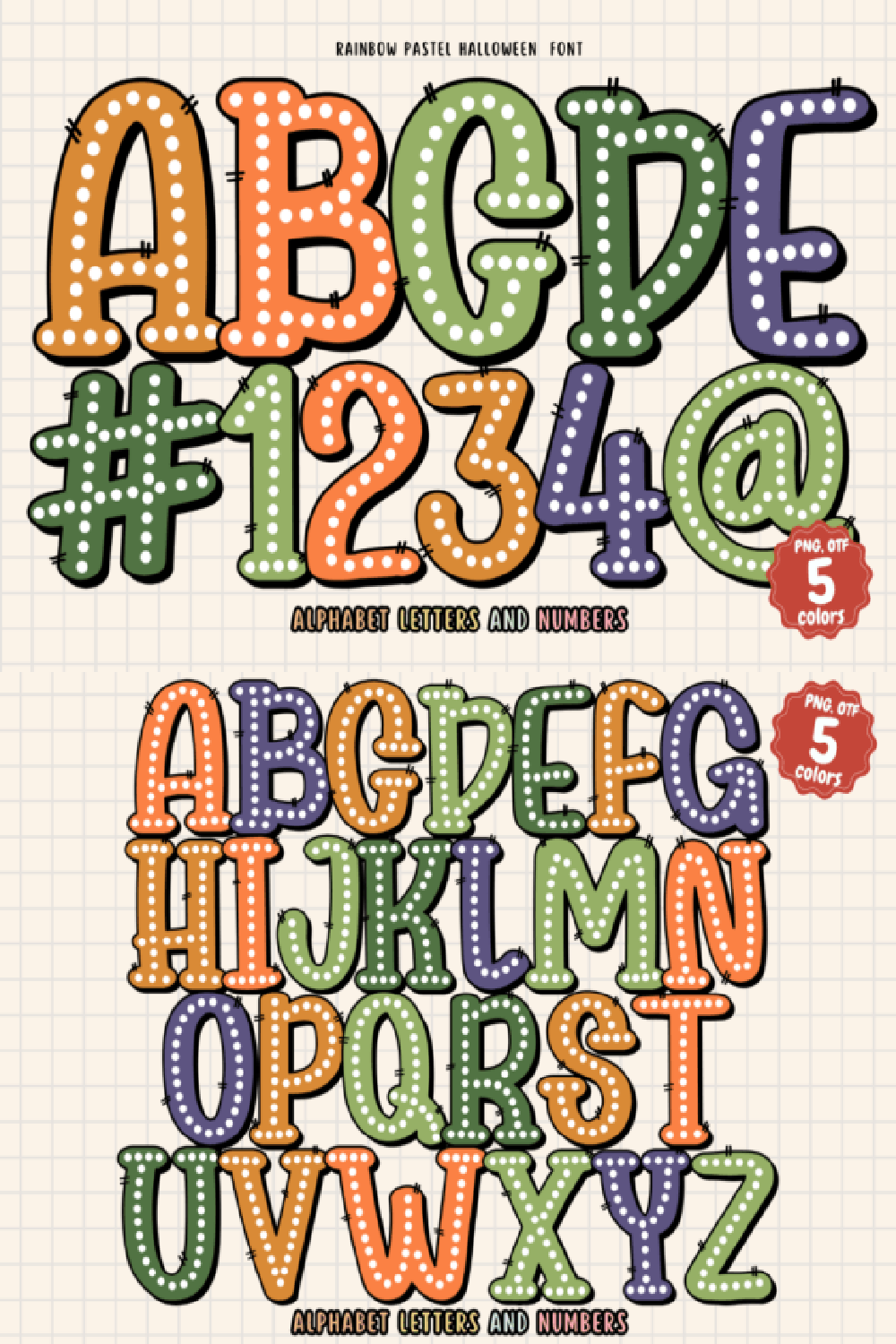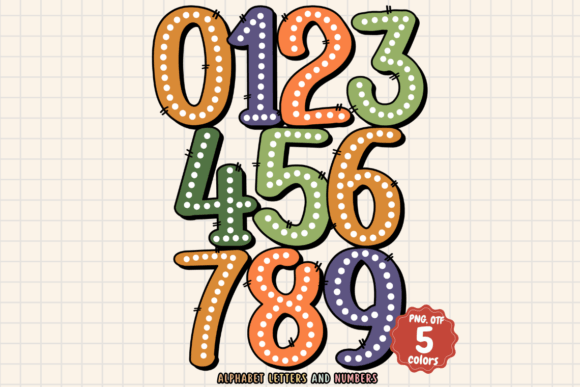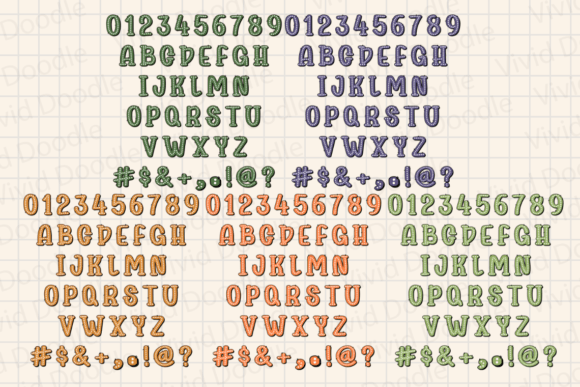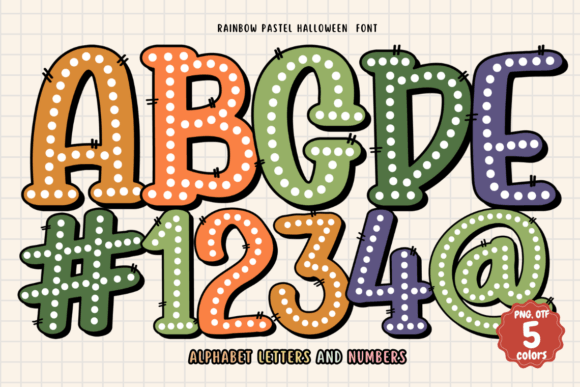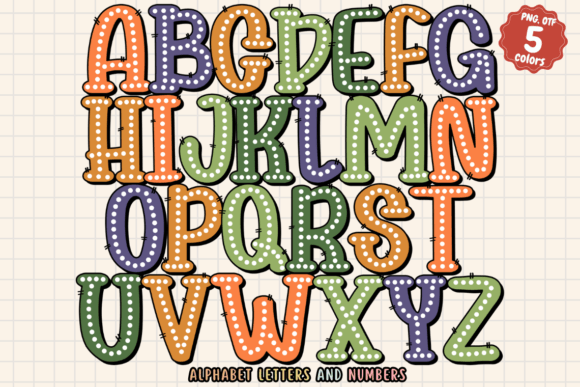
Rainbow Pastel Halloween Font
About the Rainbow Pastel Halloween Font
Meet Rainbow Pastel Halloween Font, a stunning font that brings a touch of elegance and professionalism to any design. Ideal for school projects, creative autumn crafts, fall-themed decorations, and holiday graphics, Rainbow Pastel Halloween brings a fresh and inviting vibe to your work. Its pastel palette offers a softer take on Halloween, making it suitable for a wide range of creative applications—from classroom posters and party invitations to seasonal greeting cards and festive banners. Embrace the season’s magic with Rainbow Pastel Halloween, a font that adds a touch of sweet charm to all your holiday and autumn designs!